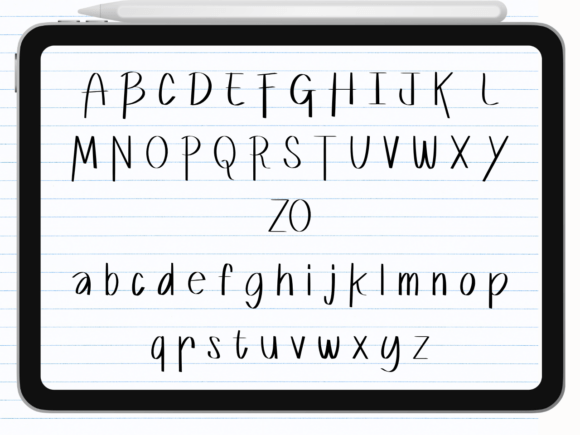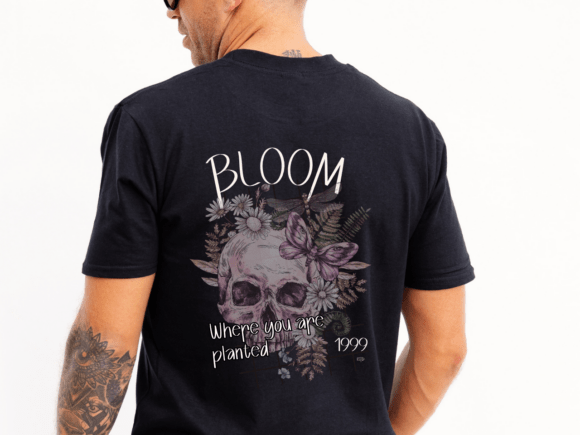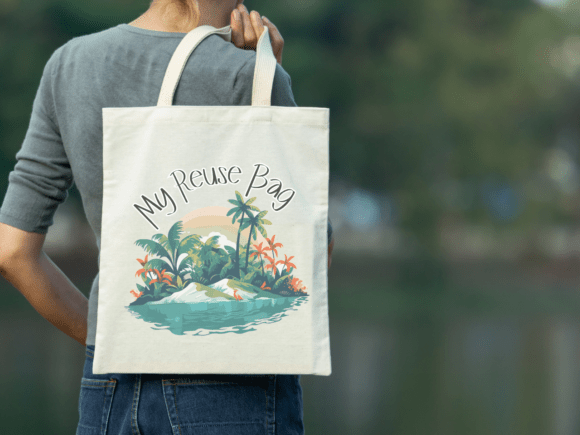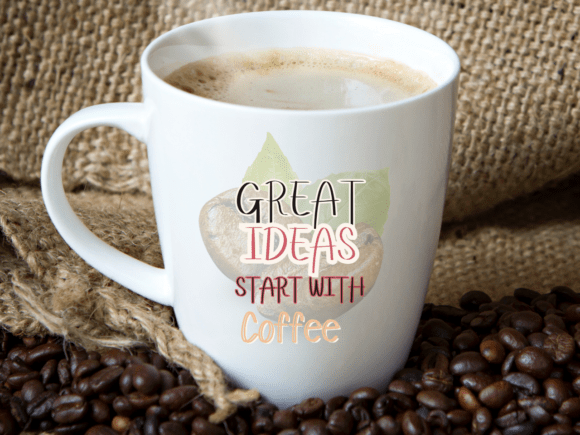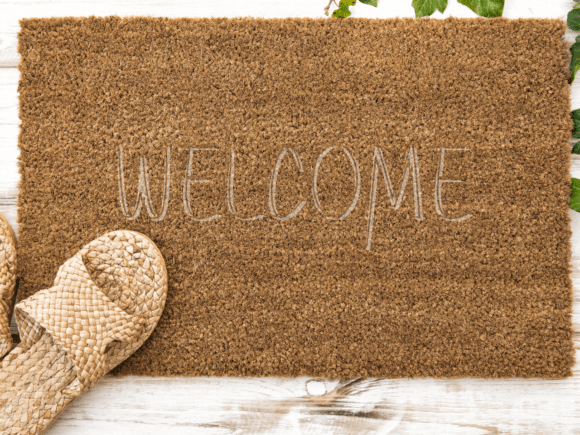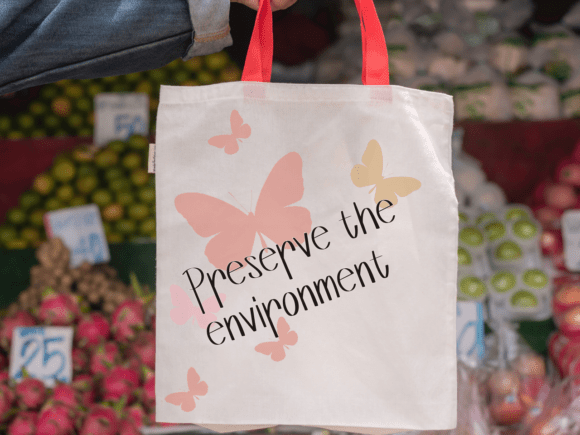
Pukkade Font – Free Download
Introduction to Pukkade Font
PukkaDe typeface is a one-of-a-kind font specifically crafted to breathe life into your designs.
This font boasts a unique identity, specially designed to add a layer of distinction to any project Whether incorporated into letters, greeting cards, wedding invitations or planners, PukkaDe ensures your creations stand out.
Key Features of Pukkade Font
Why Choose Pukkade Font?
Pukkade Font offers exceptional quality and versatility, making it a valuable addition to your design toolkit. Whether you’re creating for personal projects or commercial use, Pukkade Font delivers professional results.